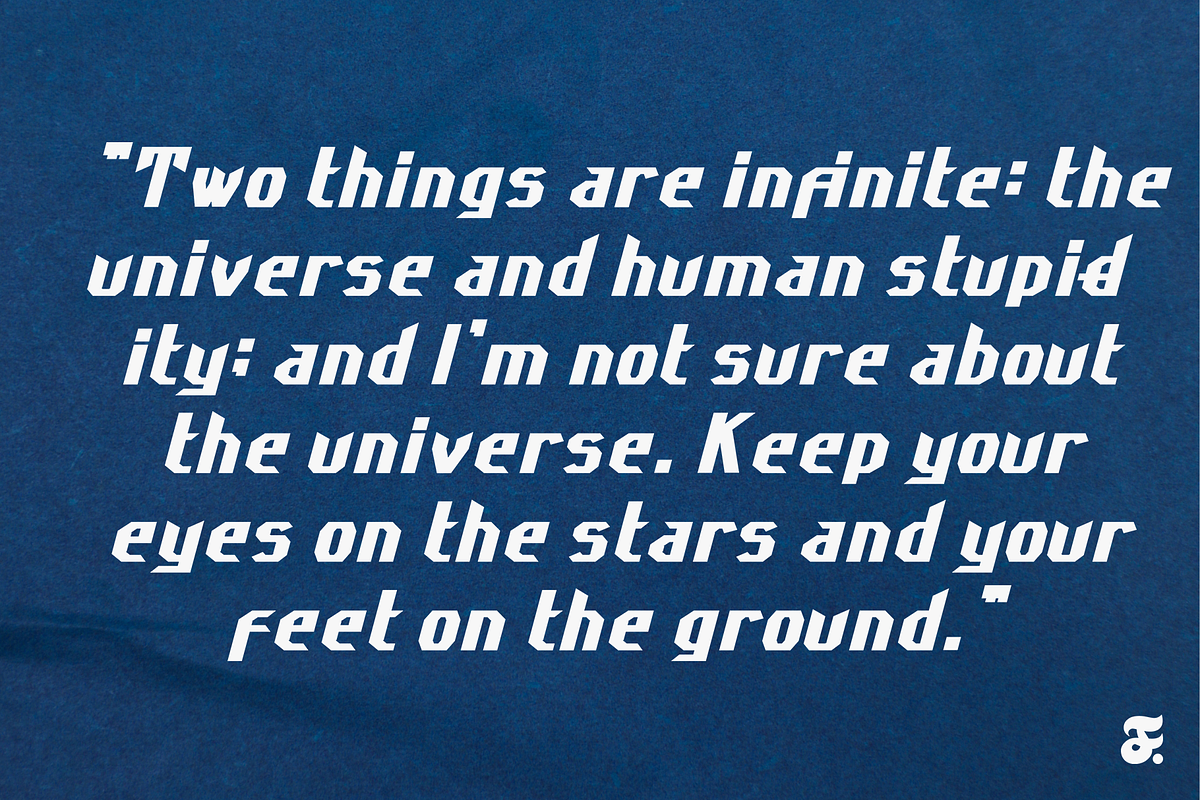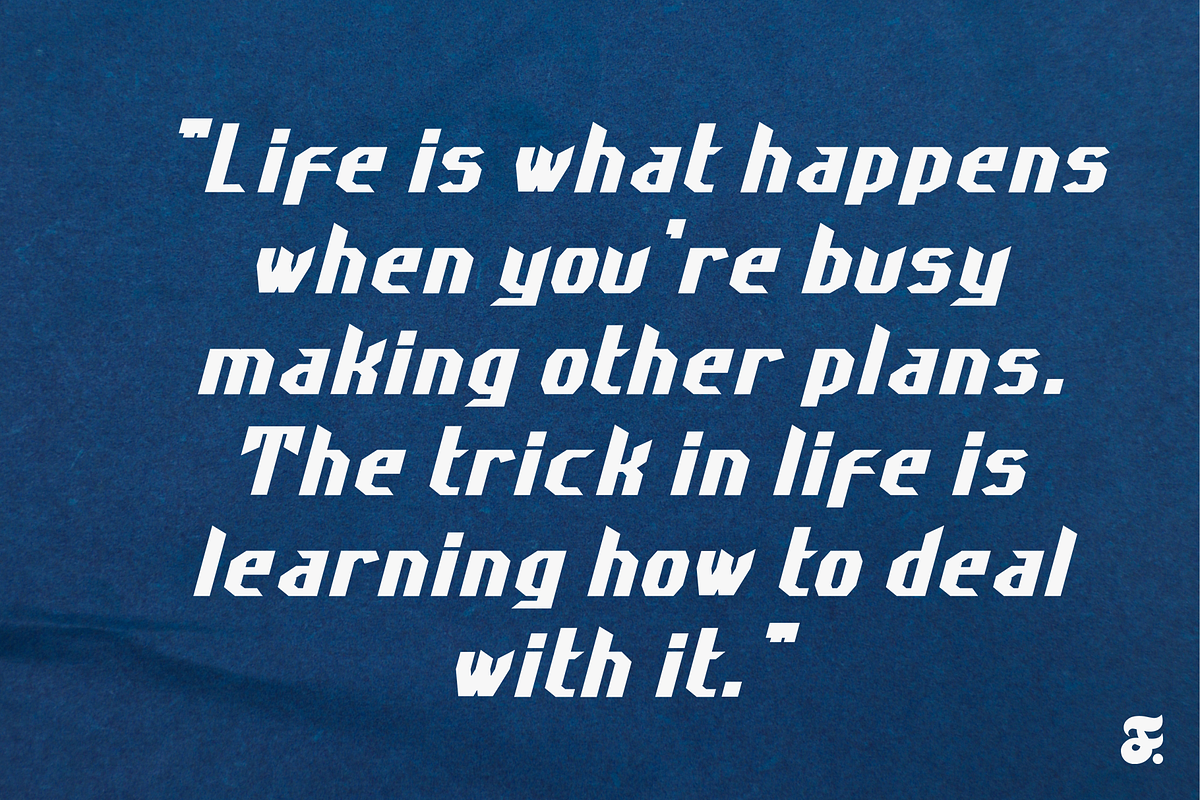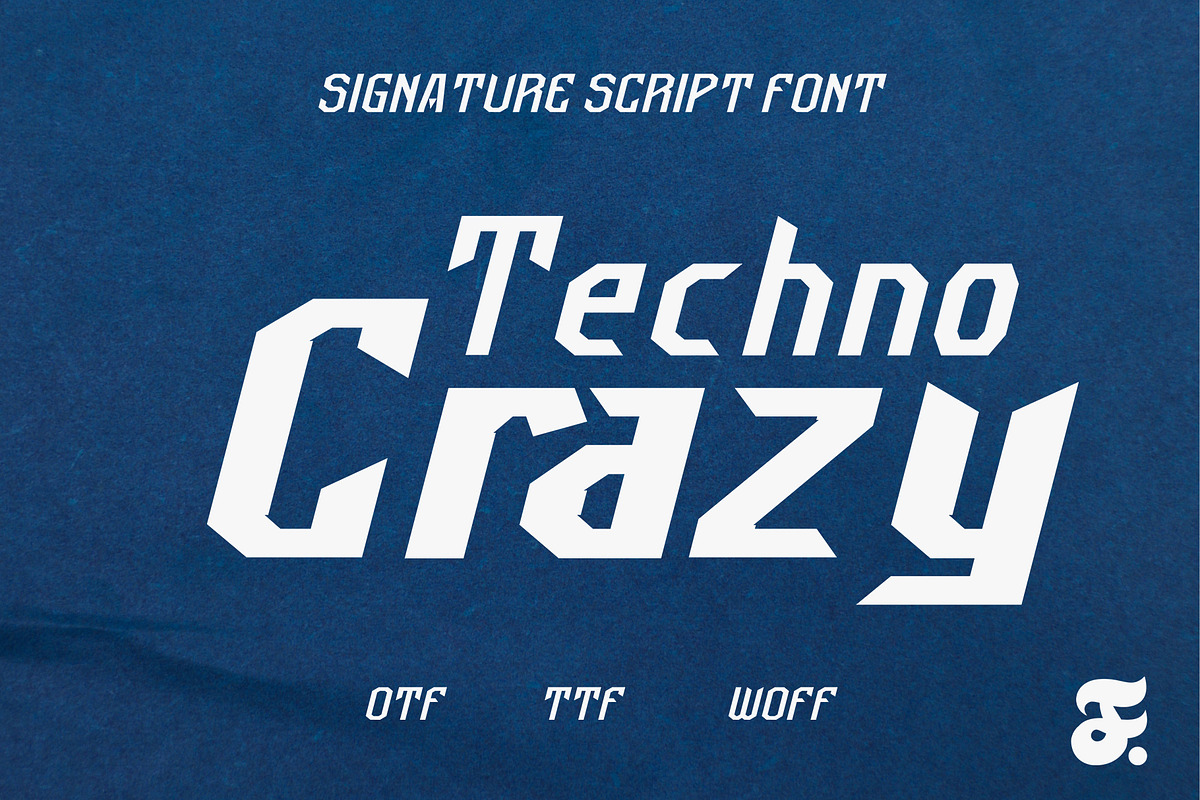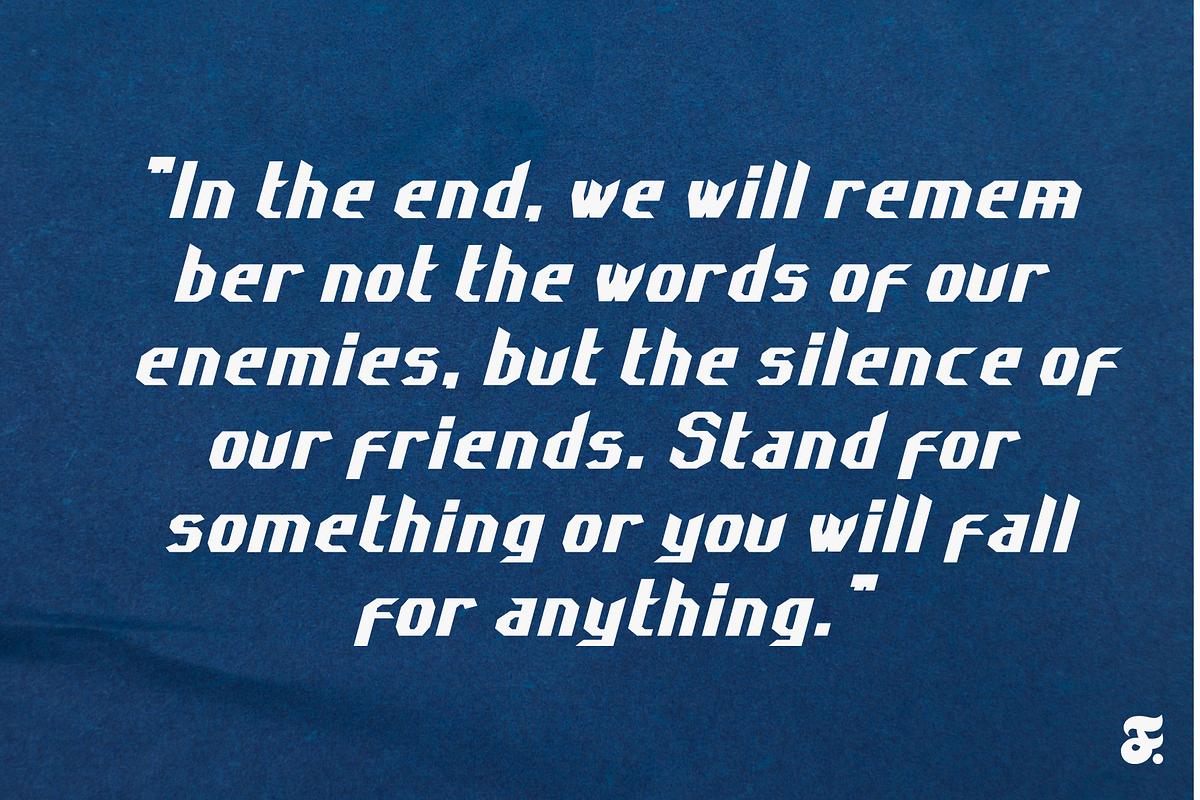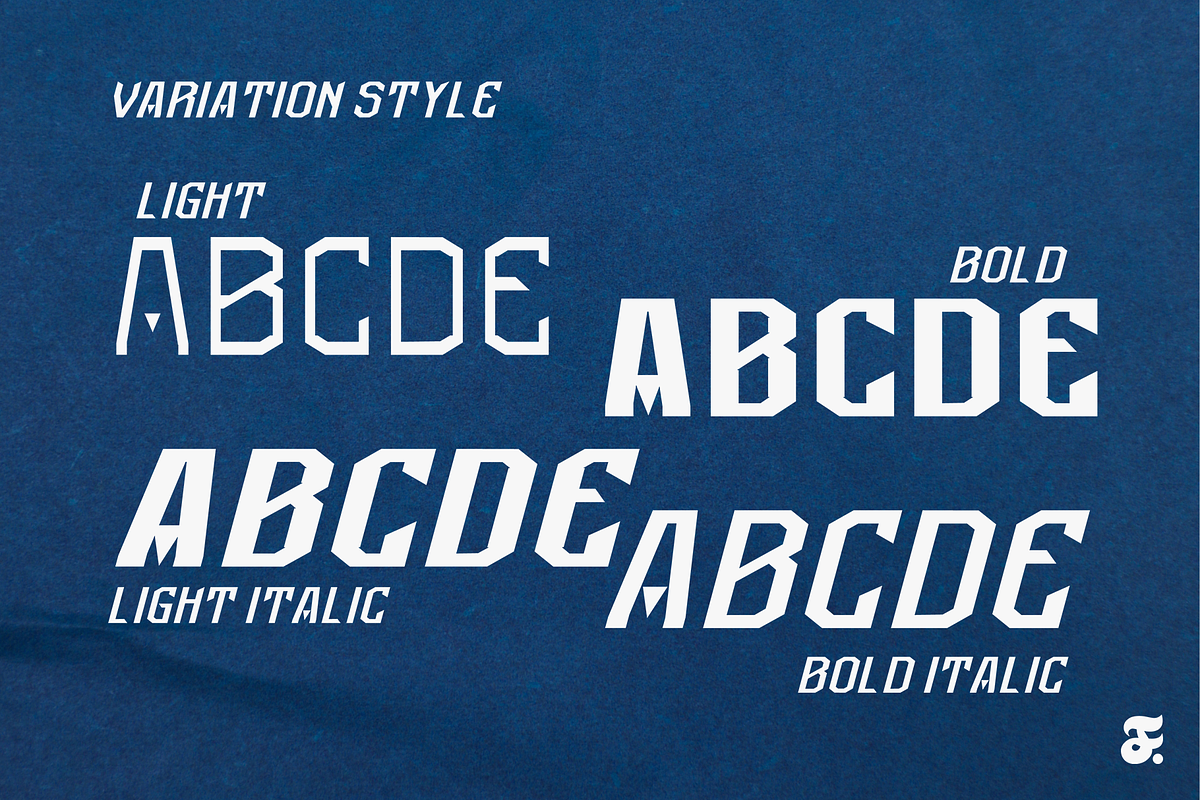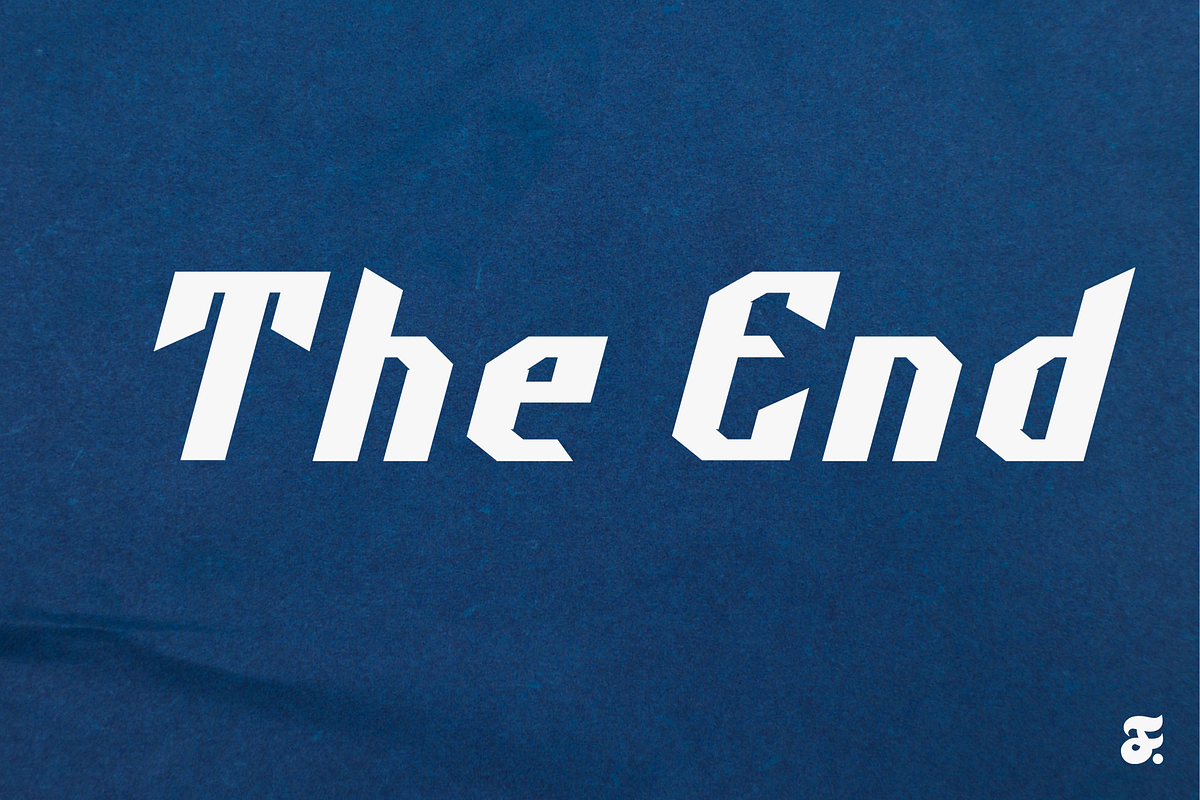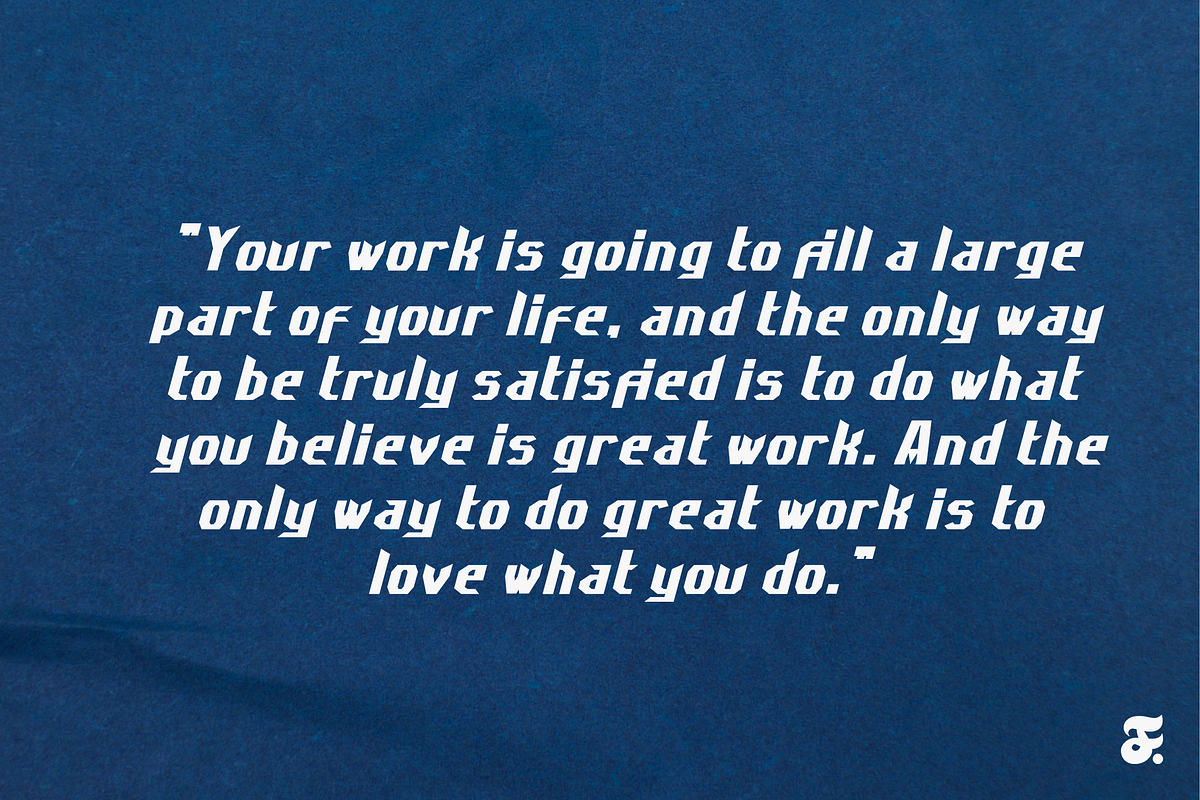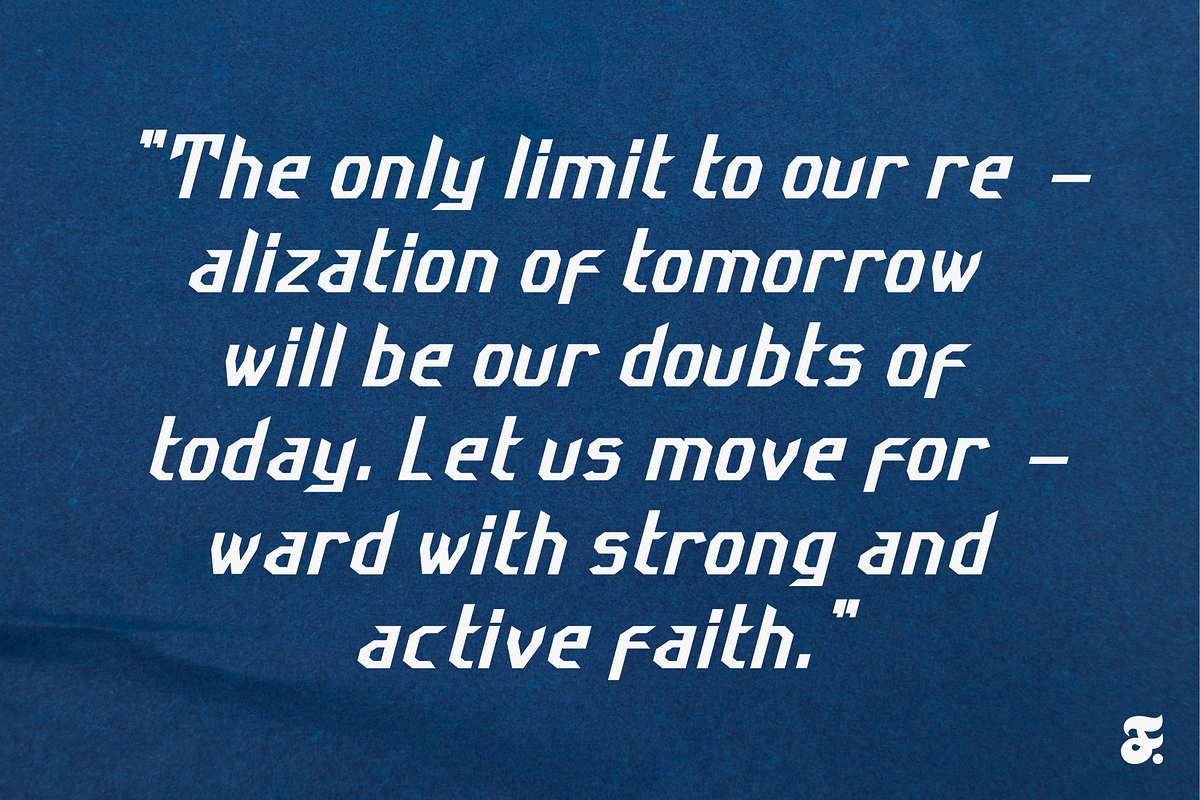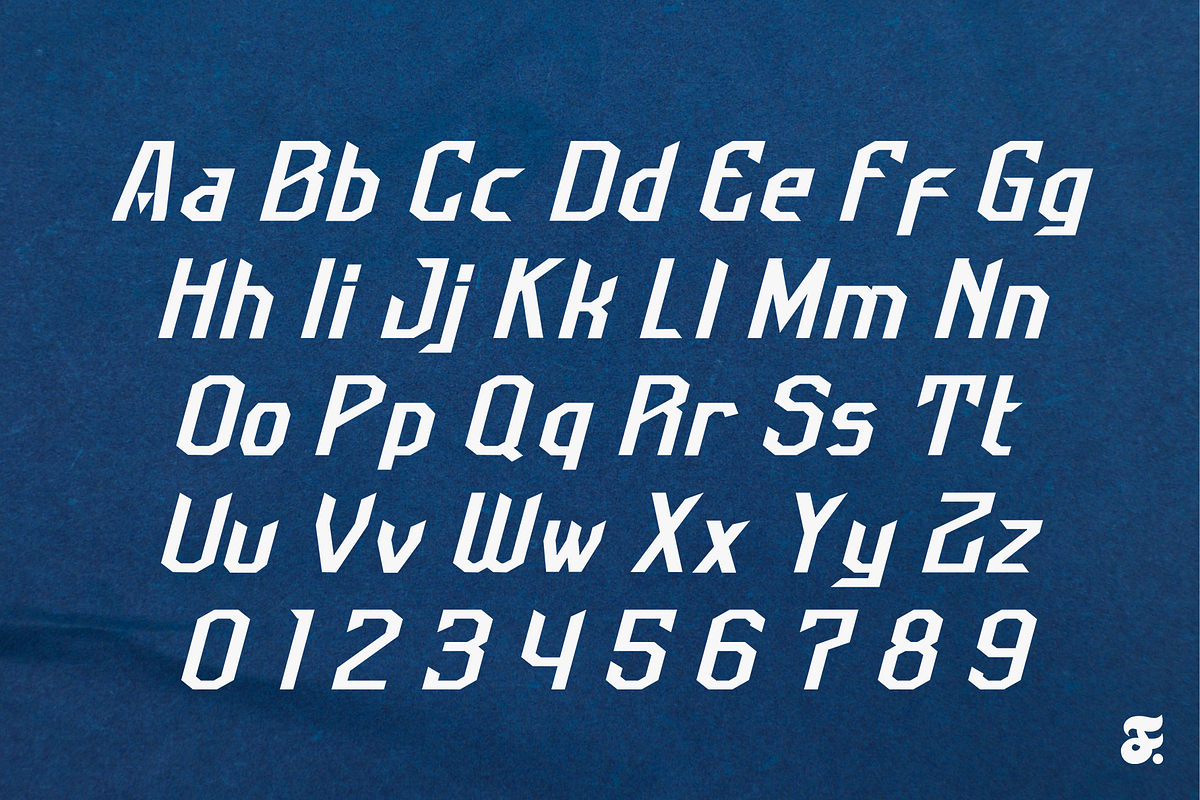
Technocrazy Futuristic Hi-Tech
Technocrazy, a futuristic hi-tech typeface, is a stunning embodiment of innovation and modernity in the realm of typography. Designed to convey a sense of cutting-edge technology and avant-garde aesthetics, this typeface transcends traditional letterforms with its sleek, angular lines and dynamic geometric shapes. Each character exudes a sense of precision and complexity, mirroring the intricacies of the technological landscape it represents. The futuristic vibe of Technocrazy makes it an ideal choice for projects that seek to immerse audiences in a world of advanced innovation, from sci-fi movie titles to tech company logos.
The hi-tech aspect of Technocrazy is not merely superficial; it is ingrained in every aspect of the typeface's design. The clean lines and sharp edges of the characters reflect a digital precision that resonates with the language of advanced computing and cybernetics. The typeface's adaptability shines through as it seamlessly integrates into a variety of design contexts, from digital interfaces to print media. Its futuristic aesthetic lends an air of sophistication and forward-thinking, making Technocrazy an invaluable tool for designers looking to communicate a sense of technological prowess in their visual compositions.
Technocrazy's futuristic hi-tech typeface is not just a visual delight; it's a language of the future written in sleek, stylized characters. Its ability to convey a sense of technological sophistication and progress makes it an exciting choice for creatives seeking to push the boundaries of design and bring a touch of the future to their projects. With Technocrazy, the written word becomes a visual journey into the realms of innovation and technological marvels.